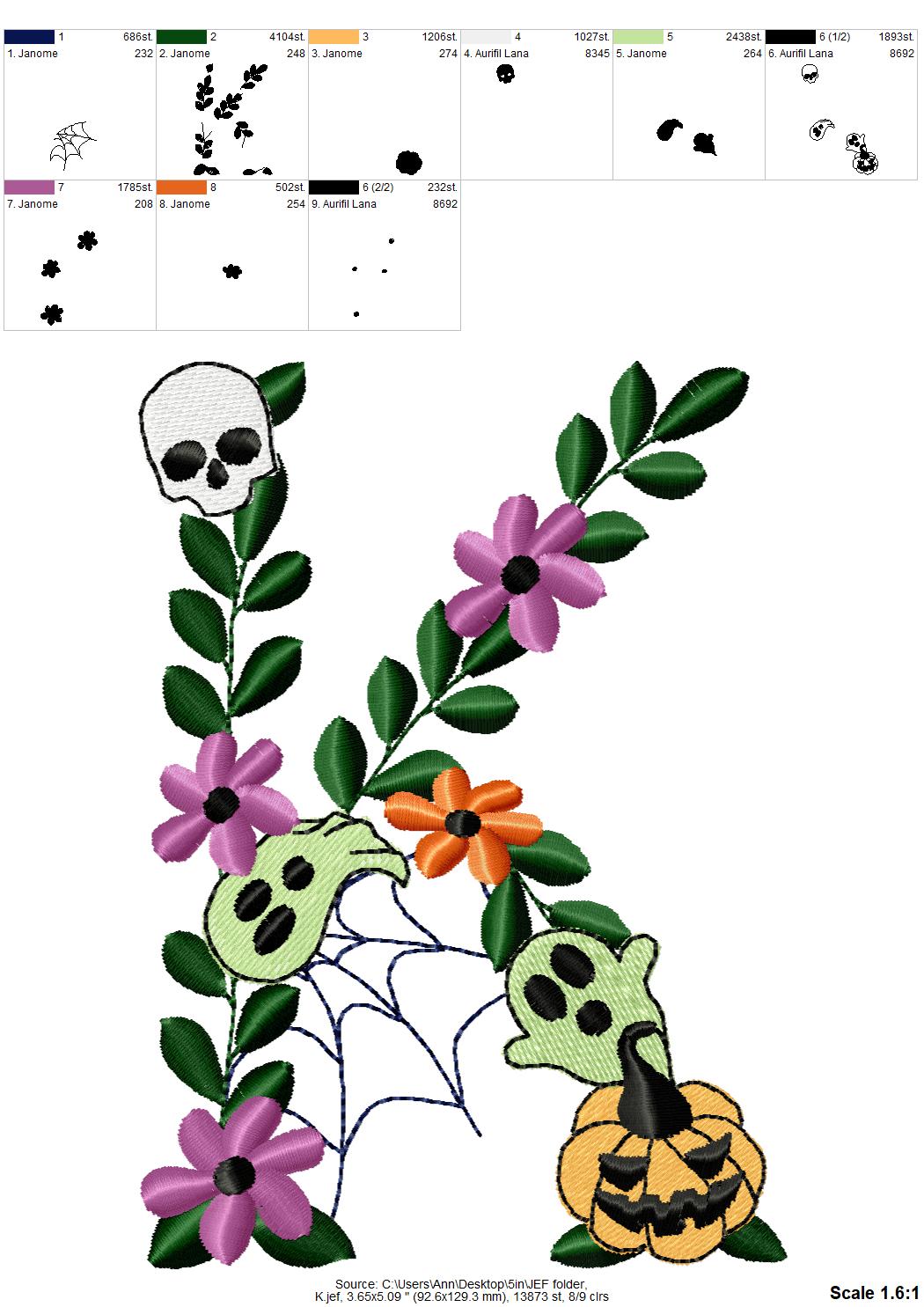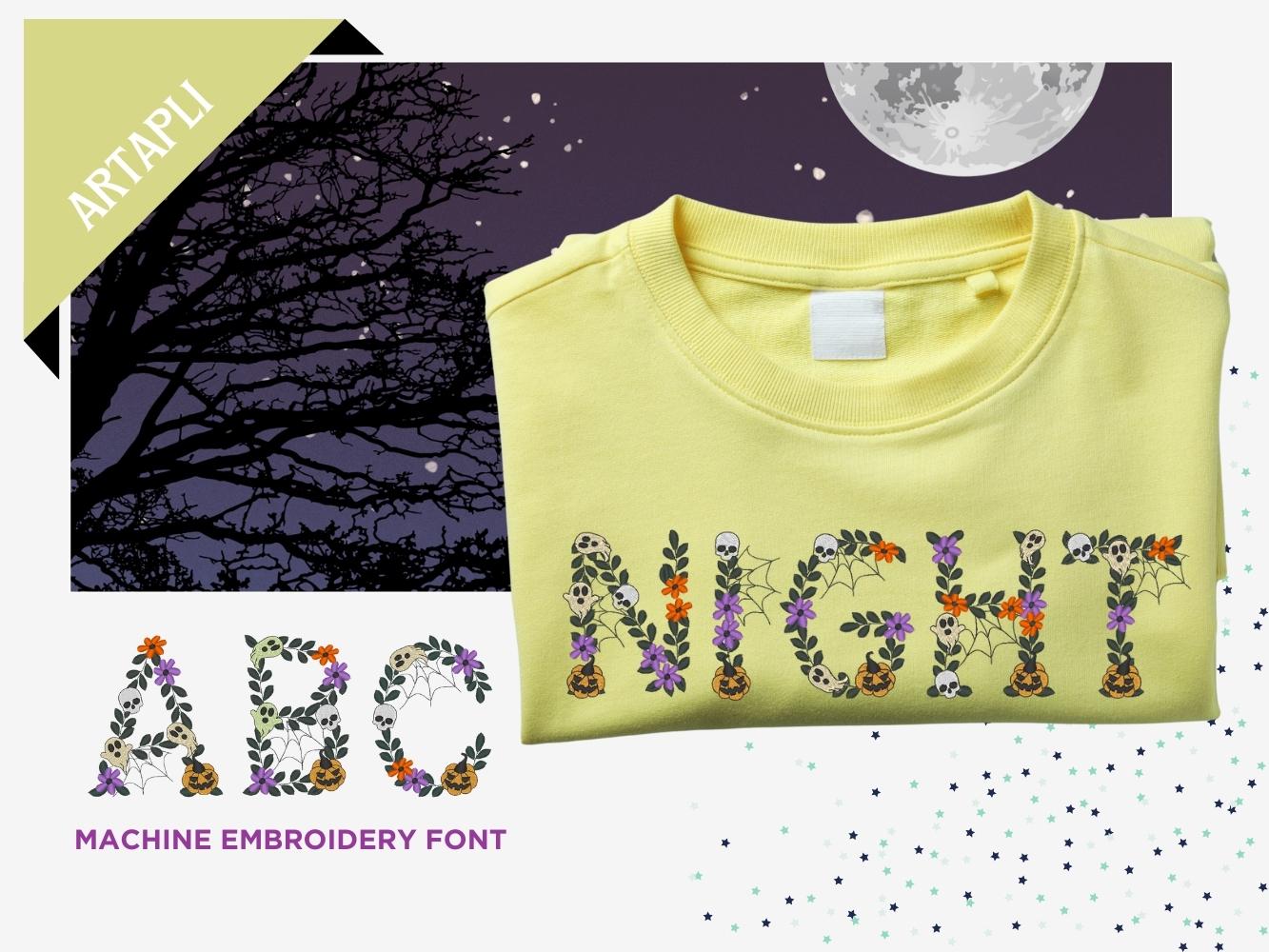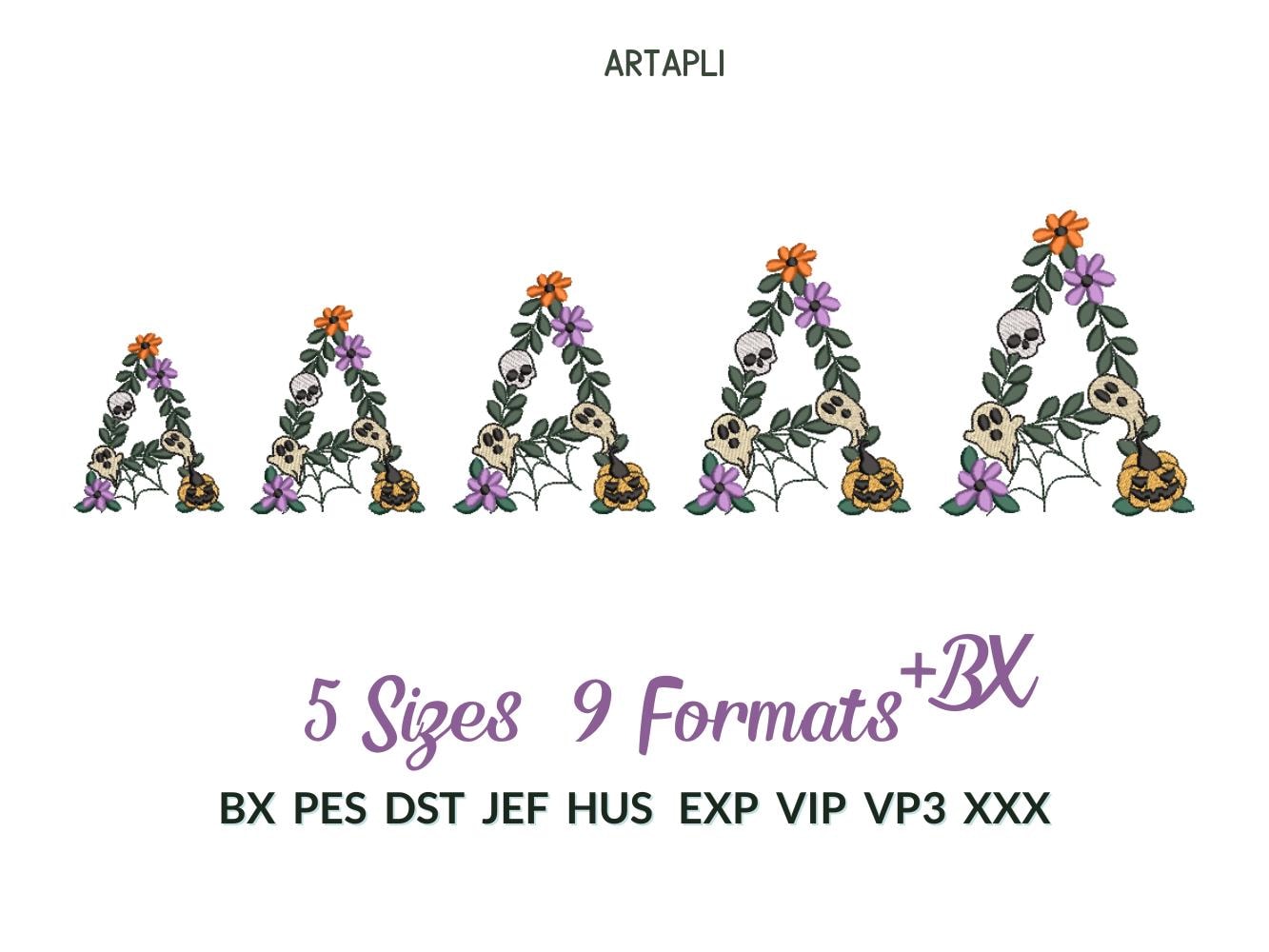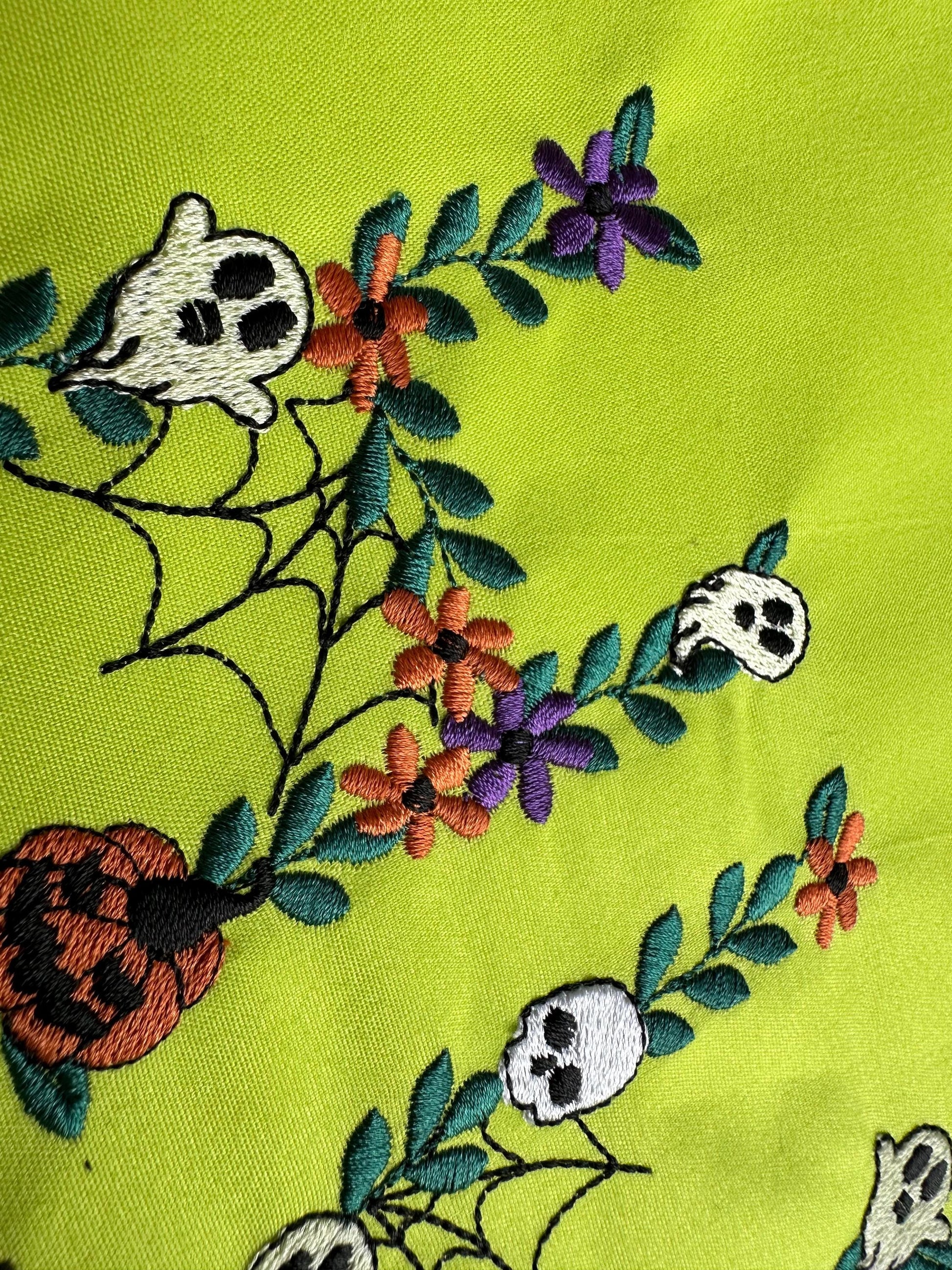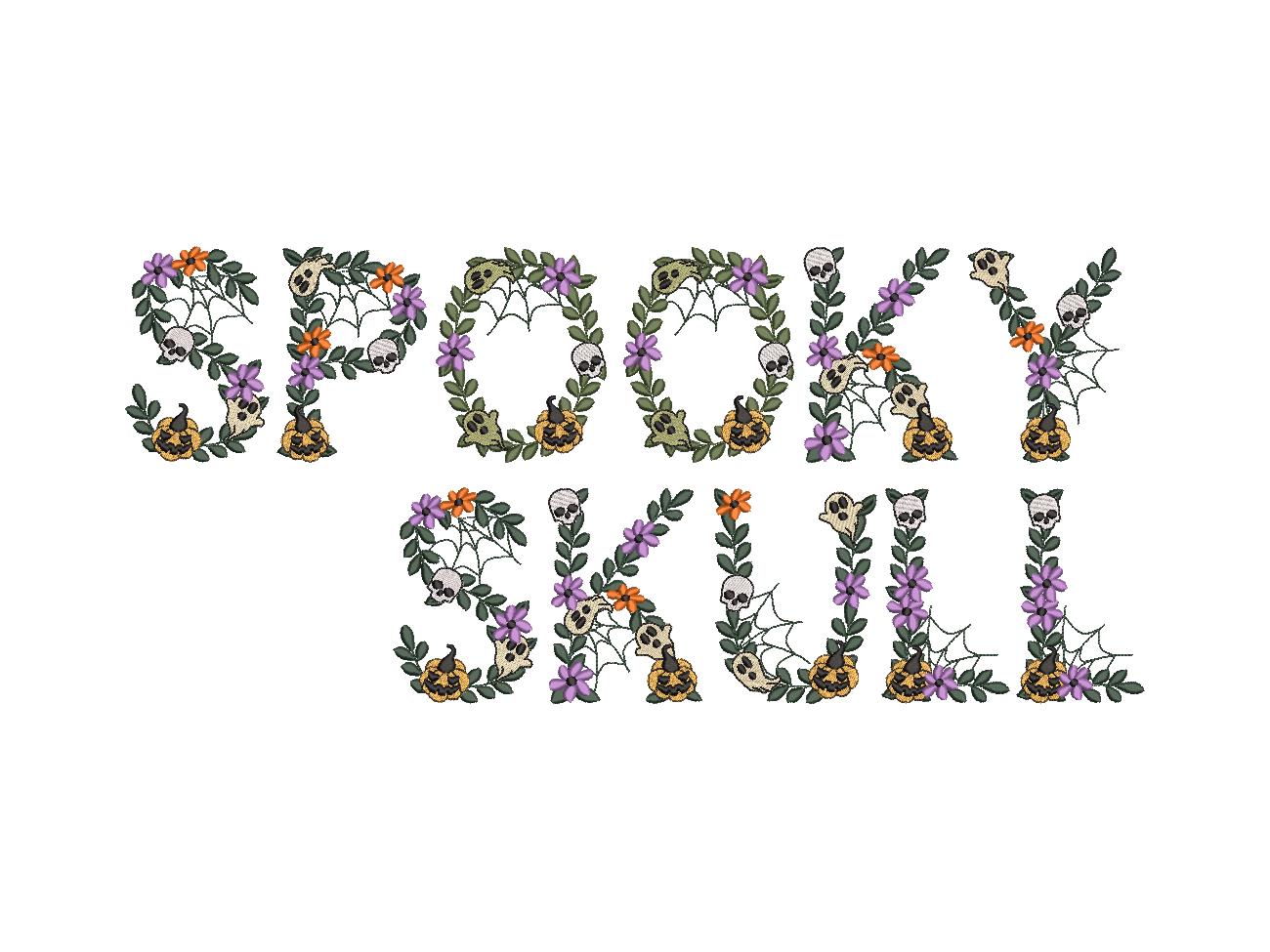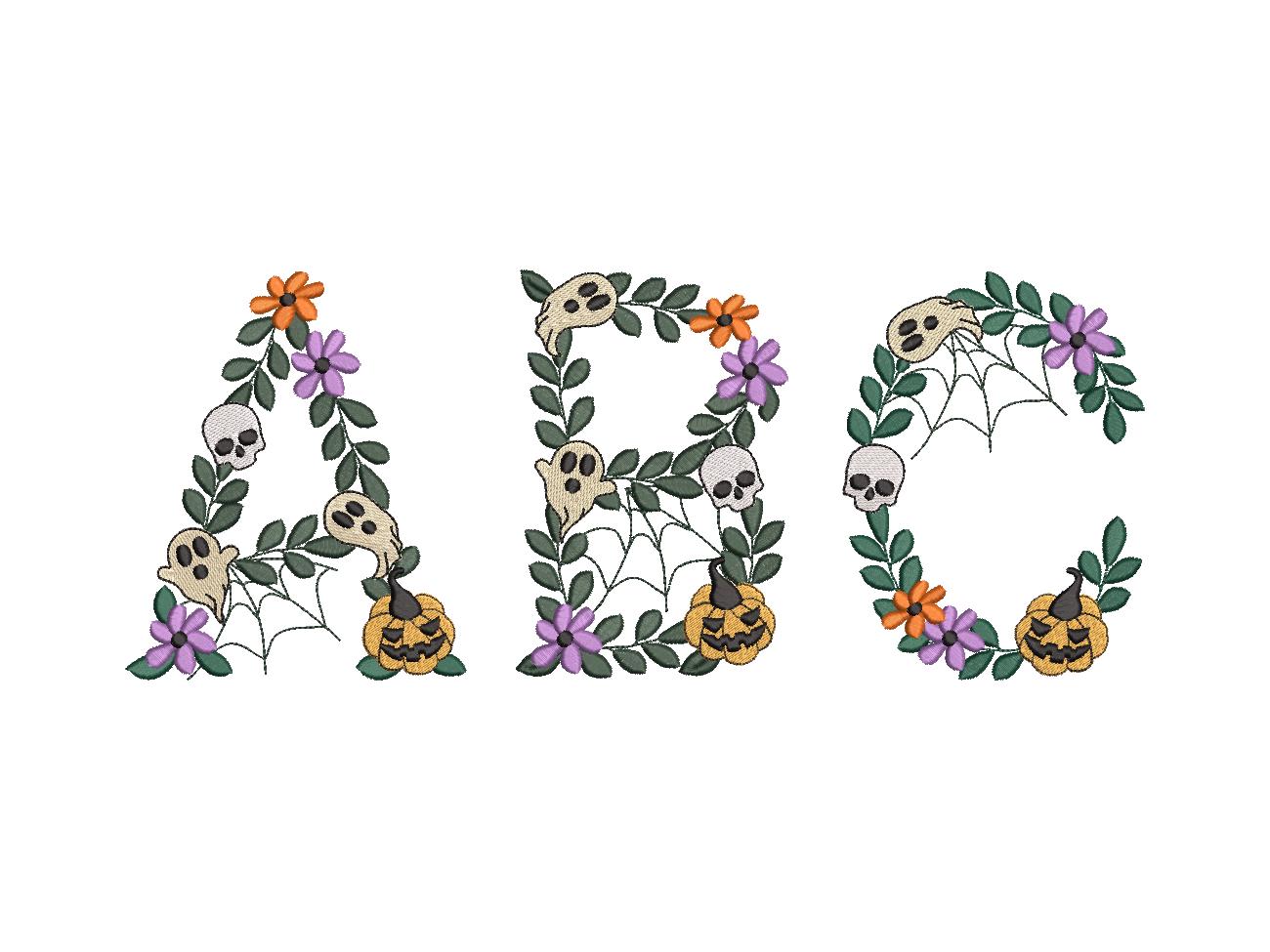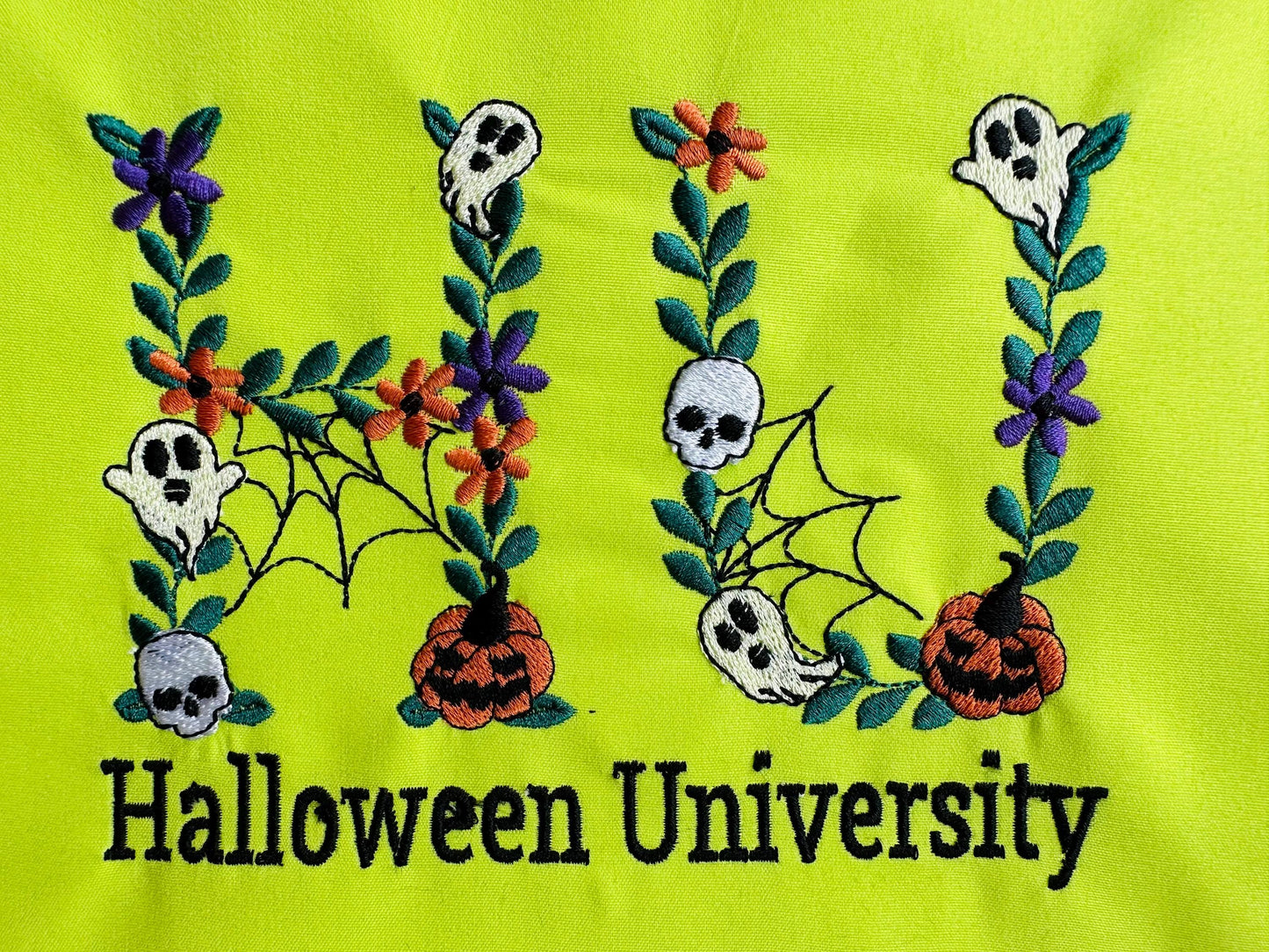
Spooky Skull Halloween Floral Alphabet
All 26 uppercase letters, A to Z, each in five sizes: 3.4, 4, 4.5, 5 and 5.7 inches. Each letter is decorated with flowers and Halloween motifs.
- Spooky skull Halloween floral alphabet
- Uppercase A to Z